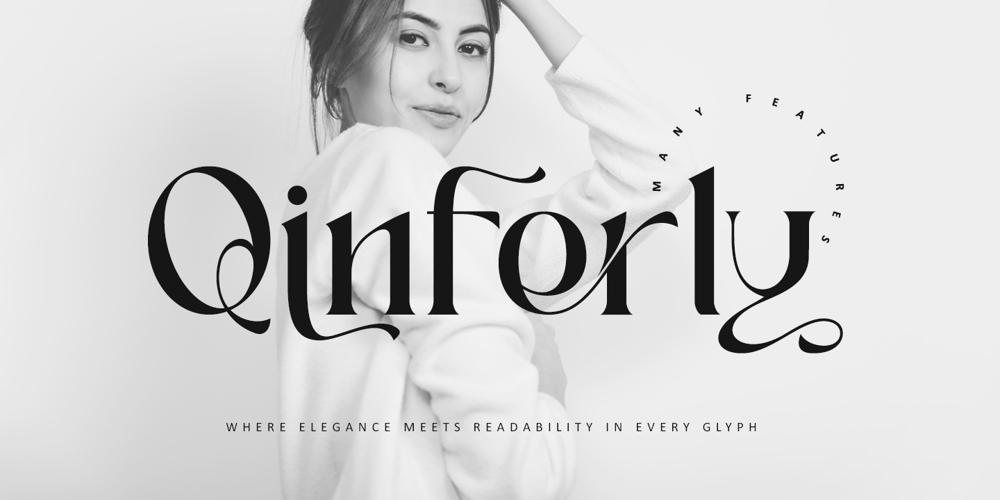
Qinferly
Qinferly font
Qinferly Font Family was designed by Thomas Aradea and published by Letterara. Qinferly contains 2 styles and family package options. Immerse yourself in the sophistication of Qinferly, a serif font that seamlessly blends bold elegance with distinctive character forms. Ideal for elevating a variety of design projects, from luxurious product packaging to refined branding, Qinferly’s PUA encoding ensures effortless access to an array of unique glyphs and swashes, guaranteeing exceptional outcomes for your creative pursuits